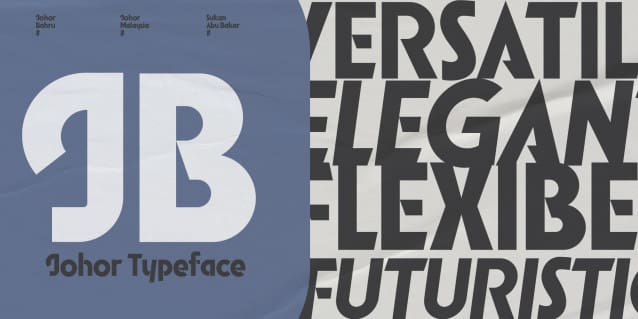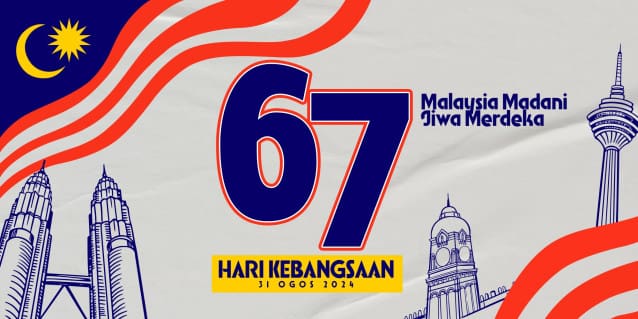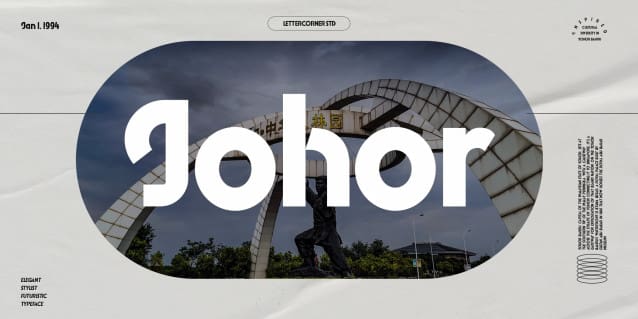
Johor Sans Font
Johor Sans Font, font that you can combine to get any variations and unique shapes easily just in seconds with choose alternates of them. It is a sans serif font with minimalist style that perfect for branding projects, logo, poster designs, social media posts, advertisements, product packaging, product designs, label, photography, watermark, invitation, stationery, and any projects, it makes with a high level of legibility.